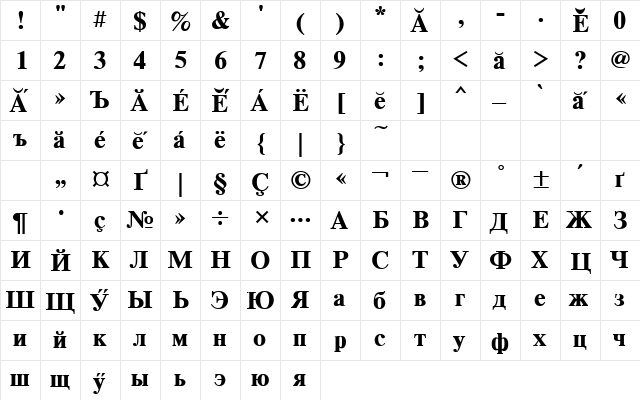
TimesET Chuvash Bold
Design Context for TimesET Chuvash Typeface
TimesET Chuvash is a composed and adaptable typeface that performs quietly and consistently across a wide range of design contexts. The heavy weight commands attention and anchors typographic hierarchies.